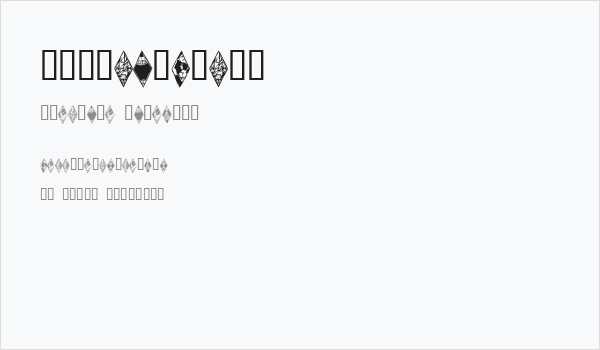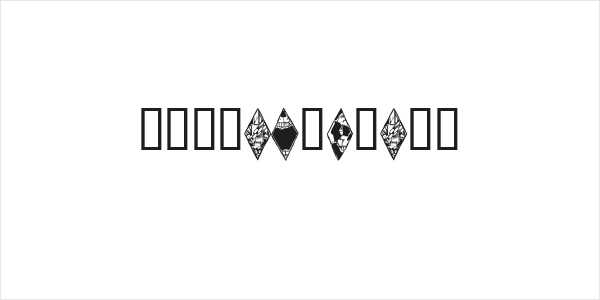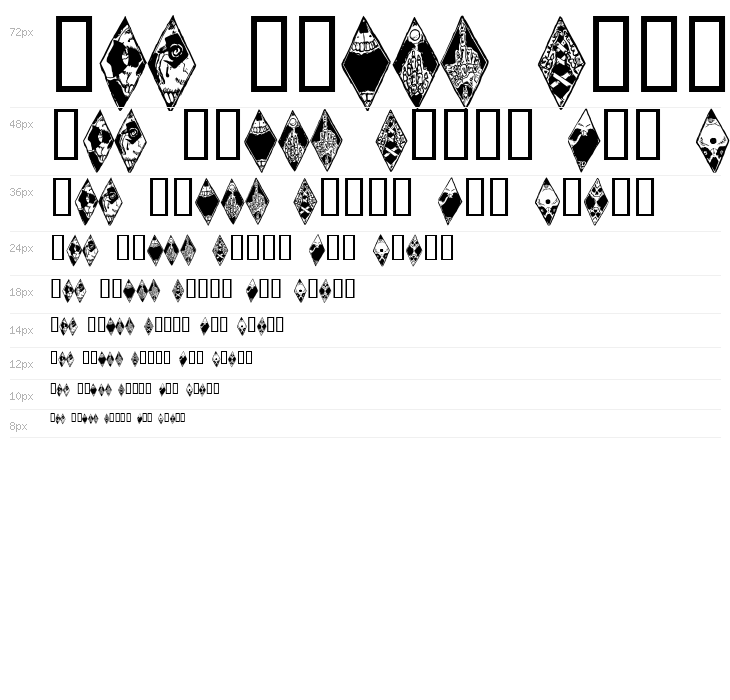
WWWraithBats Font
WWWraithBats Description
This is not a valid font. The image displays a series of diamond-shaped illustrations with intricate designs, each containing unique artistic elements. These designs are not representative of any alphabetic or numeric characters typically found in a font set. The surrounding rectangular shapes do not contain any discernible characters and appear to be placeholders or frames without content. The overall composition suggests a decorative or artistic purpose rather than a functional typeface.
| Use Case | Artistic design, Decorative elements |
| Proposed Projects | This set of illustrations could be used for artistic projects, such as graphic design elements, decorative borders, or thematic artwork. |